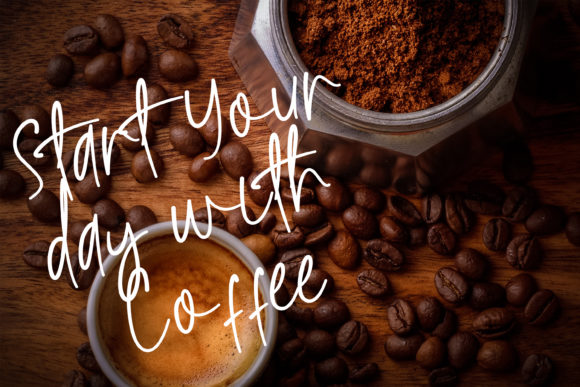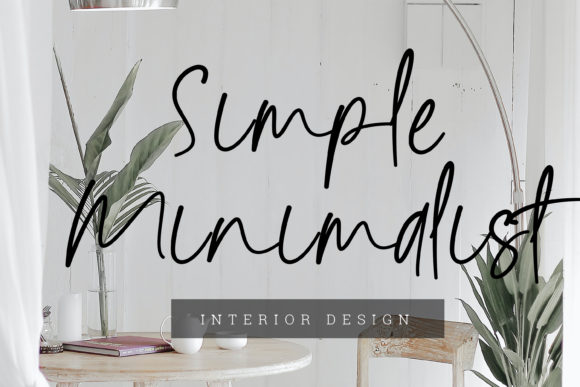
Dangglem Hills Font: The Ultimate Guide to this Flowing and Relaxed Handwritten Font
Are you a designer or crafter looking for a unique and timeless font to elevate your designs? Look no further than Dangglem Hills, a flowing and relaxed handwritten font that is sure to capture your heart. In this comprehensive guide, we’ll dive into the world of Dangglem Hills, exploring its distinct style, uses, and benefits.
What is Dangglem Hills Font?
Dangglem Hills is a beautifully crafted handwritten font that exudes a sense of relaxation and elegance. Its flowing lines and curves create a mesmerizing effect, making it perfect for designs that require a touch of sophistication and whimsy. This font is designed to be versatile, making it suitable for a wide range of projects, from branding and advertising to packaging and digital media.
The Distinct Style of Dangglem Hills
So, what sets Dangglem Hills apart from other fonts? Here are a few key features that make it stand out:
• Flowing lines: Dangglem Hills features smooth, flowing lines that give it a sense of movement and fluidity.
• Relaxed feel: The font has a laid-back, effortless vibe that’s perfect for designs that require a touch of casual elegance.
• Timeless style: Dangglem Hills has a classic, timeless quality that ensures it won’t go out of style anytime soon.
Uses for Dangglem Hills Font
Dangglem Hills is an incredibly versatile font that can be used in a wide range of projects, including:
• Branding and advertising: Use Dangglem Hills to create eye-catching logos, taglines, and ad campaigns that capture the essence of your brand.
• Packaging design: Add a touch of elegance and sophistication to your product packaging with Dangglem Hills.
• Digital media: Use Dangglem Hills in your digital designs, such as social media graphics, blog posts, and email newsletters.
• Crafting and DIY projects: Dangglem Hills is perfect for crafters and DIY enthusiasts who want to add a personal touch to their projects, such as handmade cards, scrapbooking, and journaling.
Benefits of Using Dangglem Hills Font
Here are just a few benefits of using Dangglem Hills in your designs:
• Unique and distinctive: Dangglem Hills is a one-of-a-kind font that will set your designs apart from the crowd.
• Elegant and sophisticated: The font’s flowing lines and relaxed feel give it a sophisticated, elegant quality that’s perfect for high-end designs.
• Easy to read: Despite its elegant style, Dangglem Hills is surprisingly easy to read, making it perfect for body text and captions.
Tips for Using Dangglem Hills Font
Here are a few tips for getting the most out of Dangglem Hills:
• Experiment with different sizes: Dangglem Hills looks great in a variety of sizes, from large headings to smaller body text.
• Pair it with other fonts: Try pairing Dangglem Hills with other fonts to create interesting contrast and visual interest.
• Use it consistently: Use Dangglem Hills consistently throughout your design to create a cohesive, professional look.
Dangglem Hills is a truly unique and special font that is sure to capture your heart. Its flowing lines, relaxed feel, and timeless style make it perfect for a wide range of designs, from branding and advertising to packaging and digital media. Whether you’re a designer, crafter, or DIY enthusiast, Dangglem Hills is a must-have font that will elevate your designs and help you stand out from the crowd.